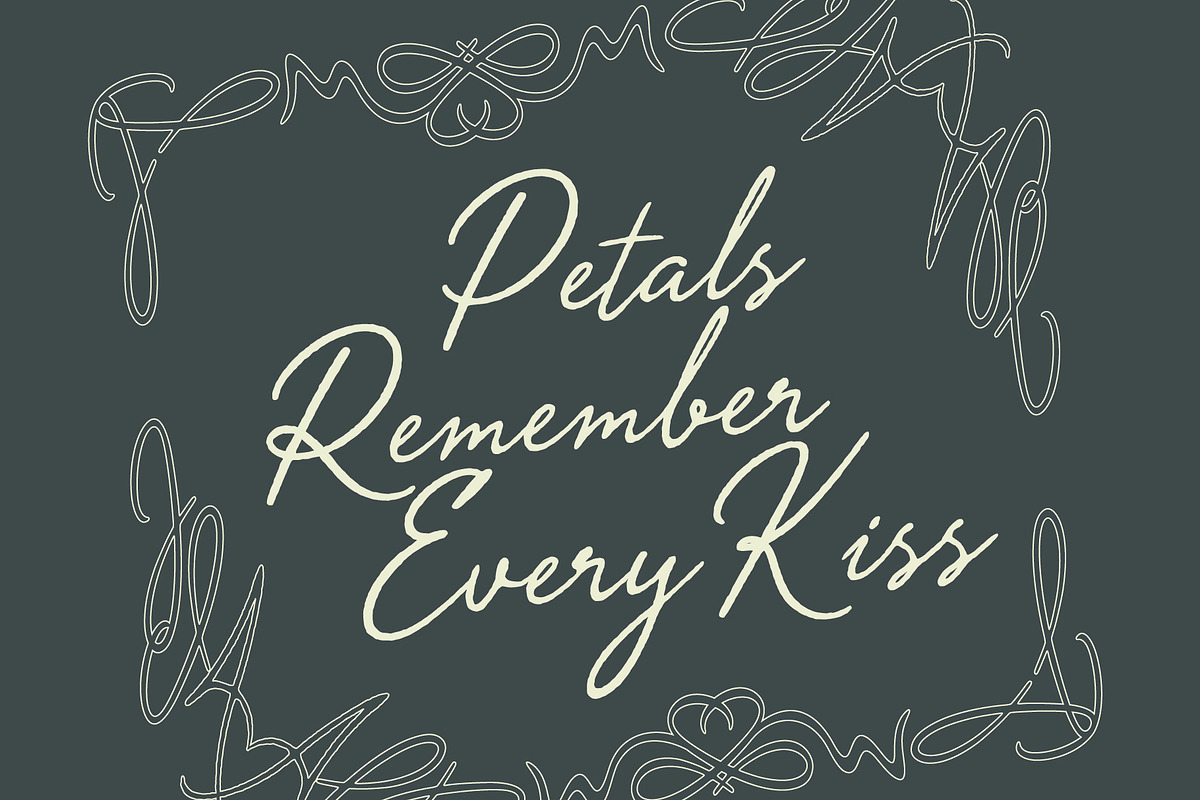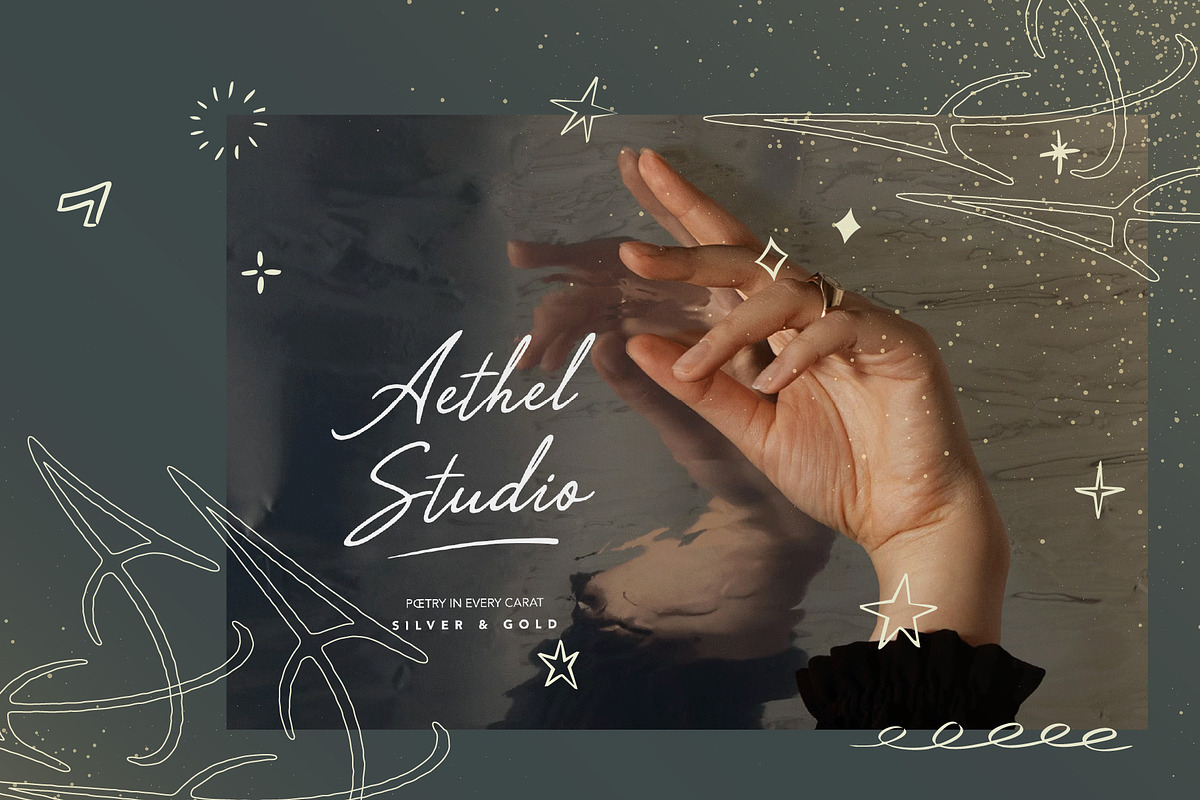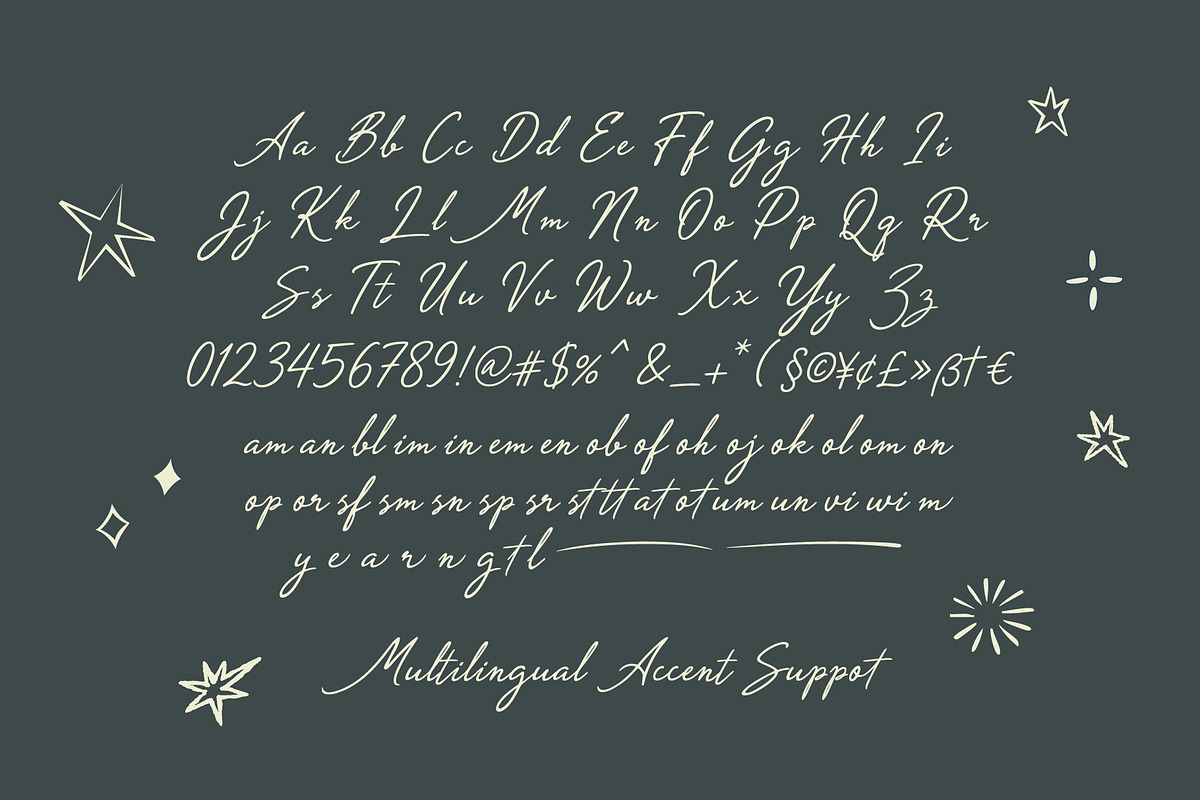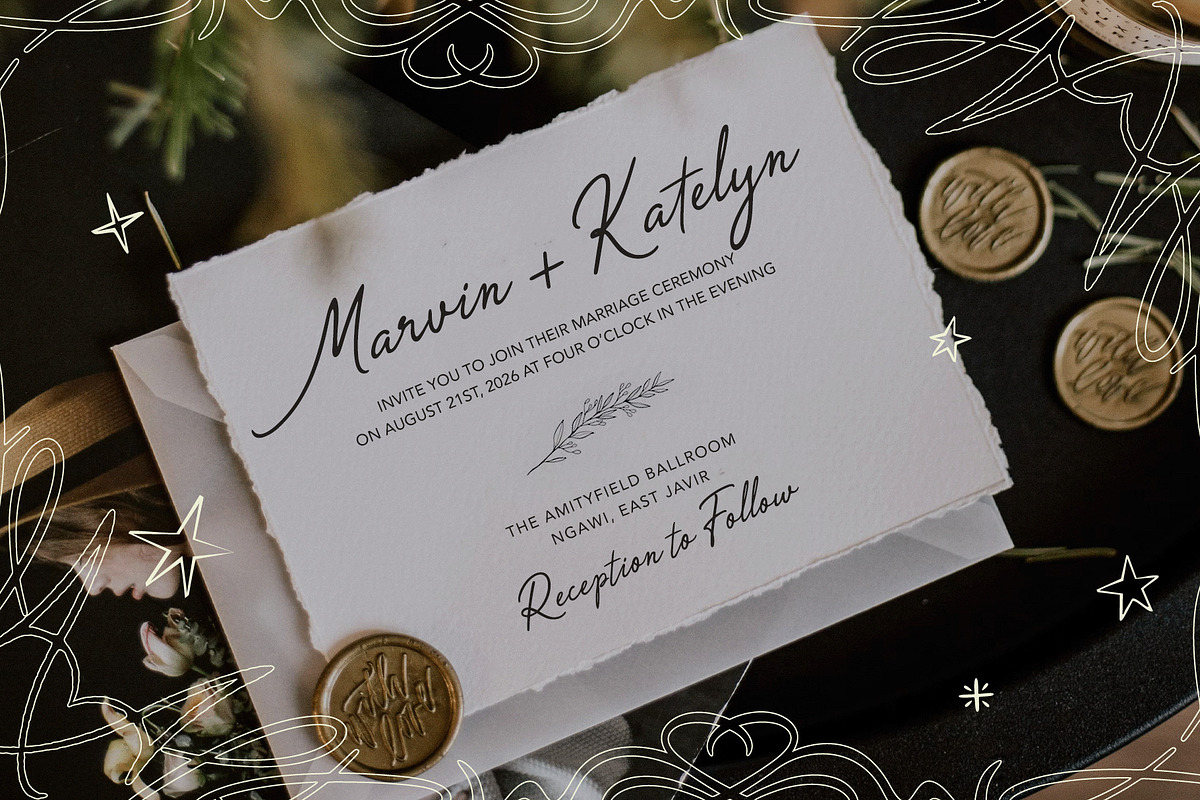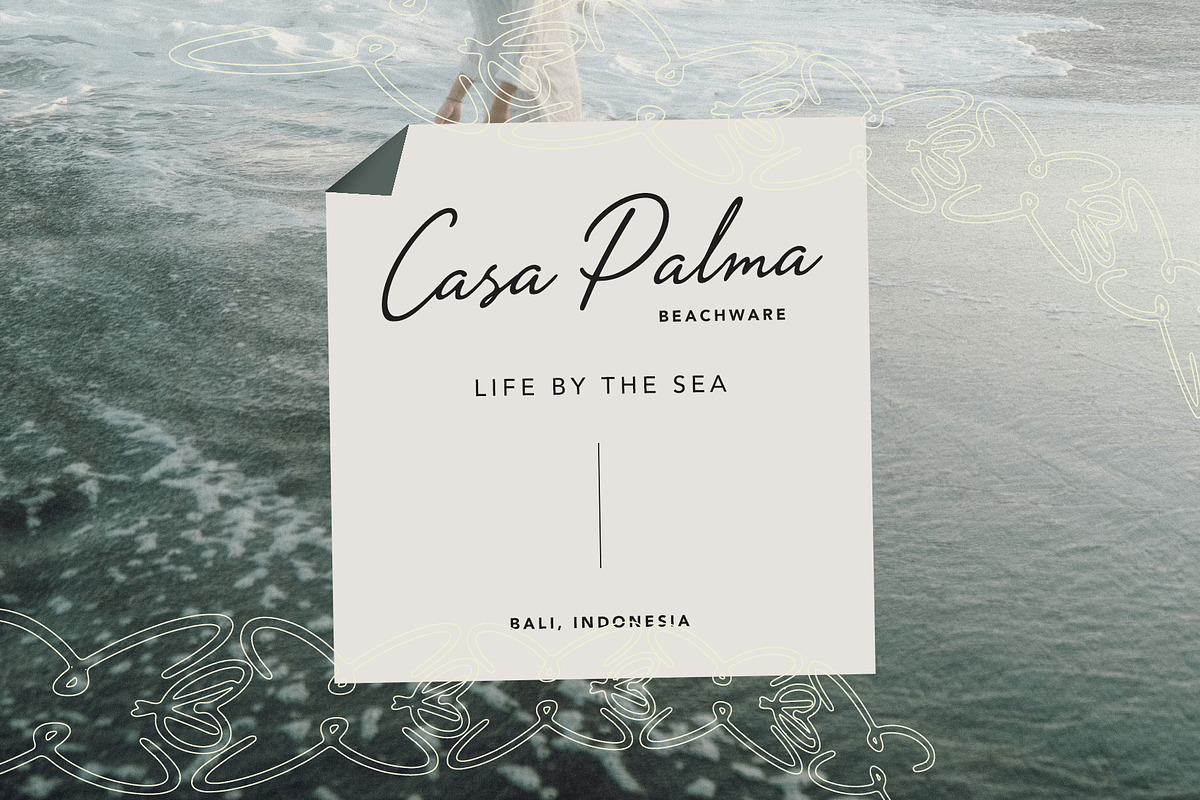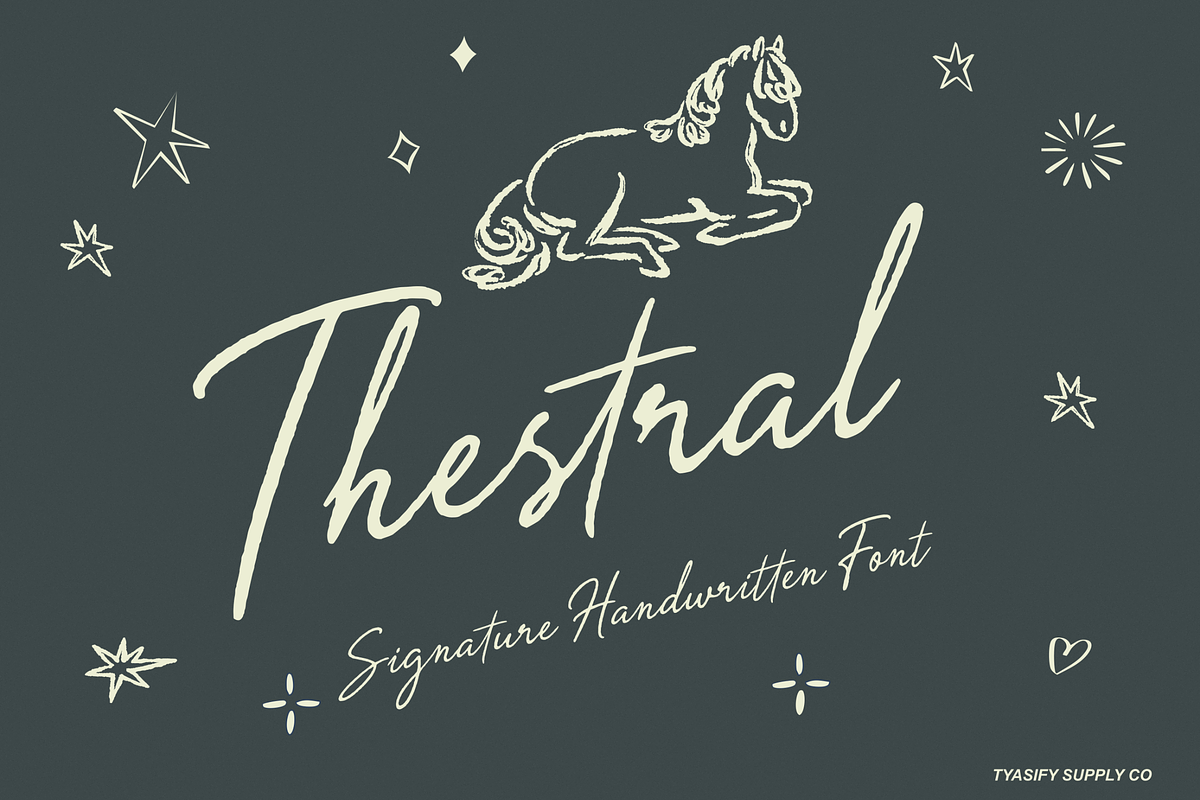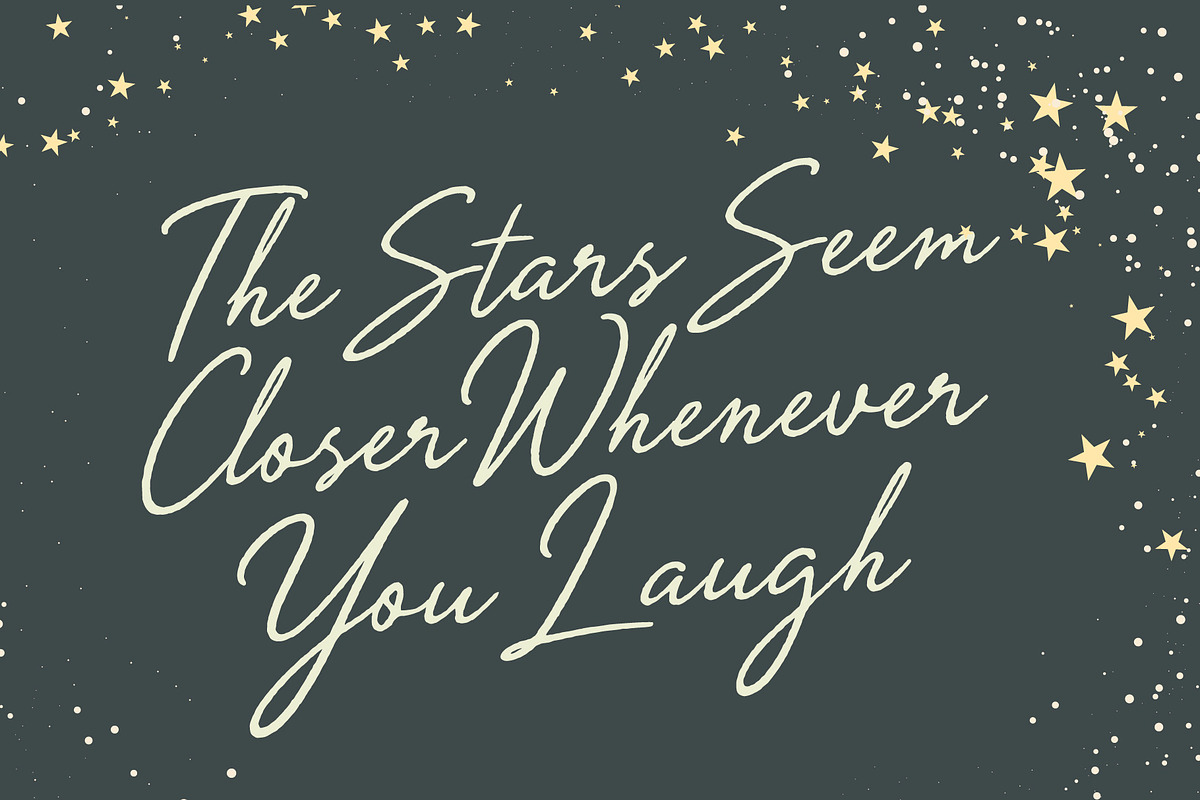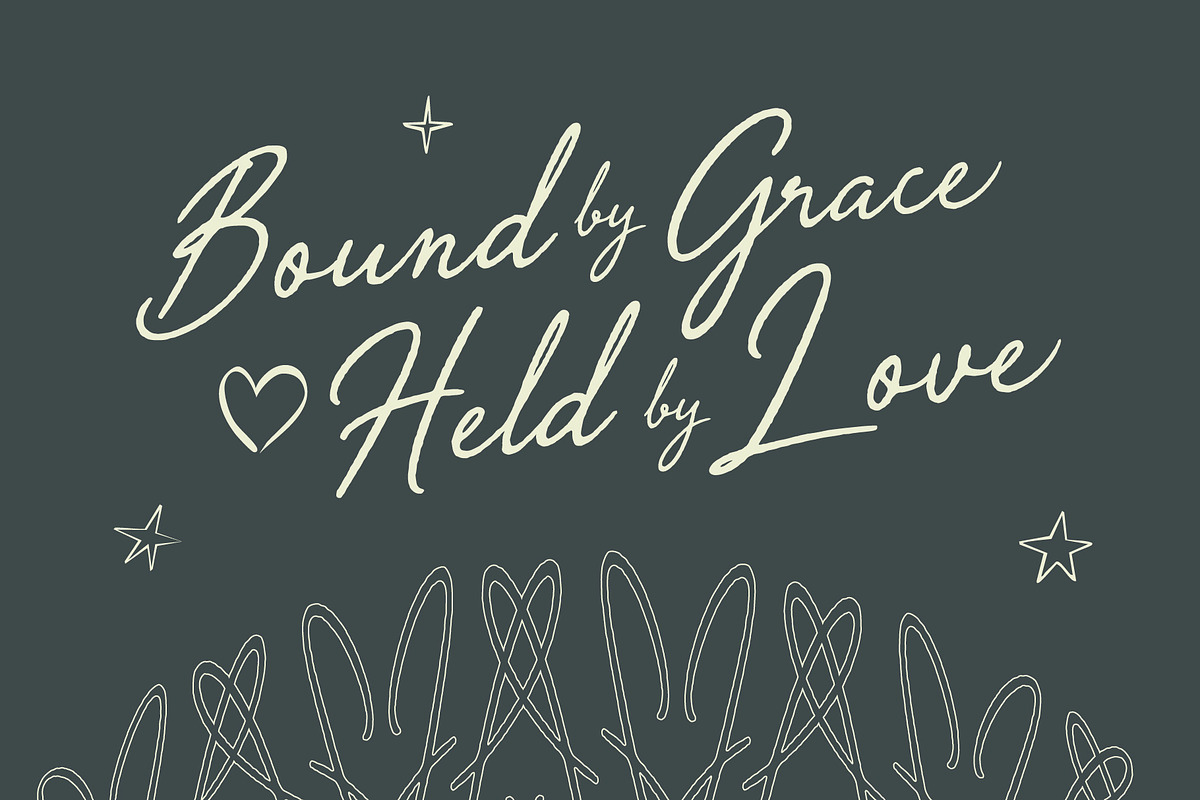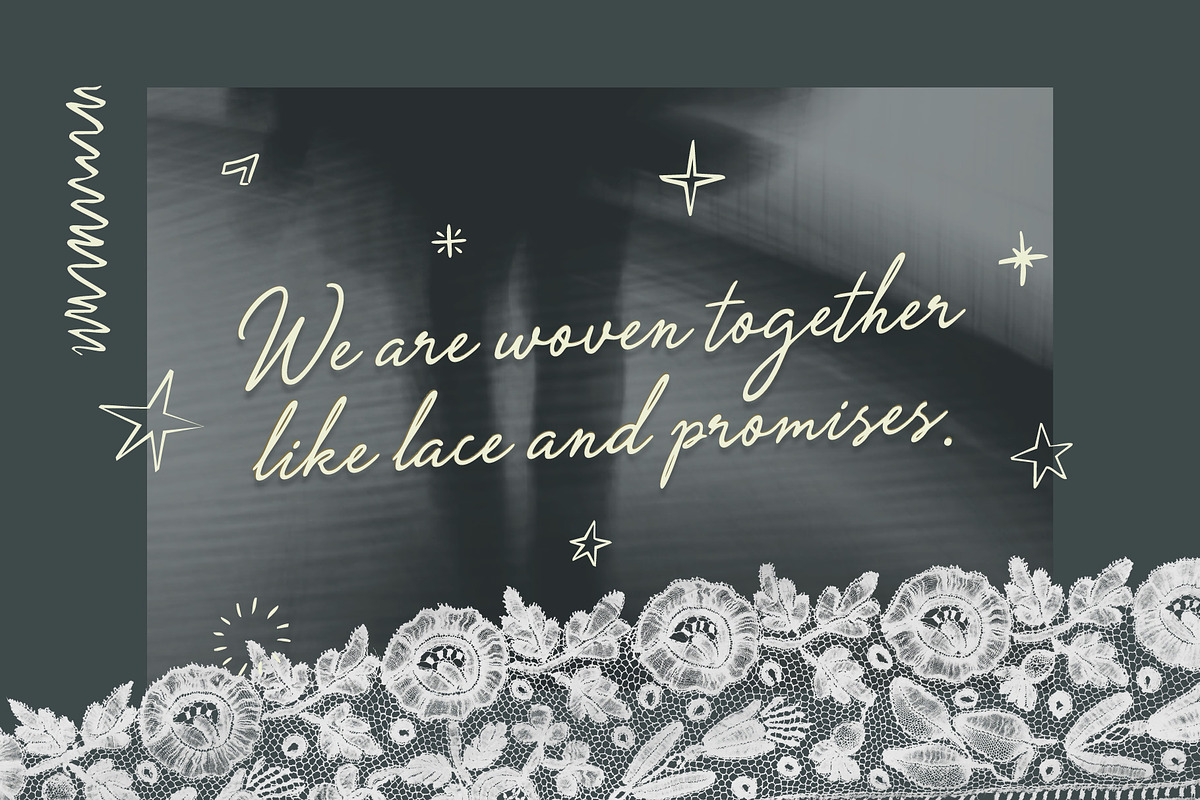
Thestral Signature Handwritten Font
Thestral Signature is a delicate handwritten font and expressive calligraphy script designed with a quiet little tension in every line. Sketched initially on an iPad to capture the authentic, raw flow of natural digital pen strokes, this font combines fine, irregular strokes with a soft handwritten rhythm. It feels like a page from an old diary or antique correspondence.
The expressive capital letters and fragile loops give names and short phrases a distinctive silhouette, creating lettering that feels collected rather than constructed.
Uppercase and lowercase letters
Numbers and punctuation
Decorative alternates / swash characters